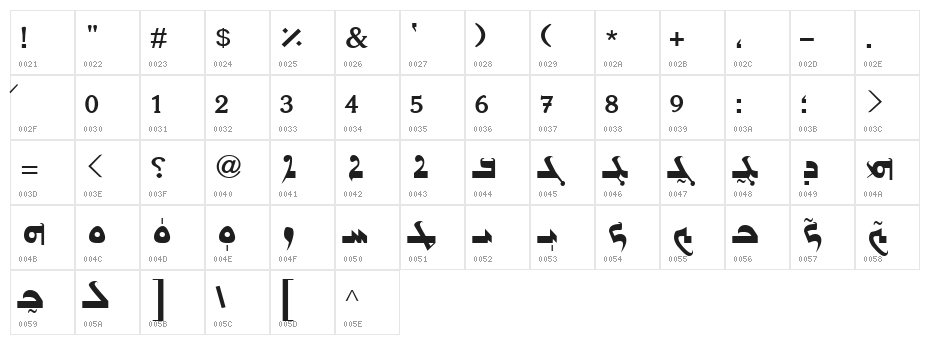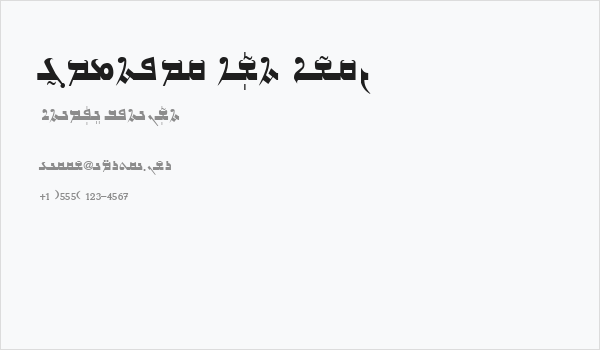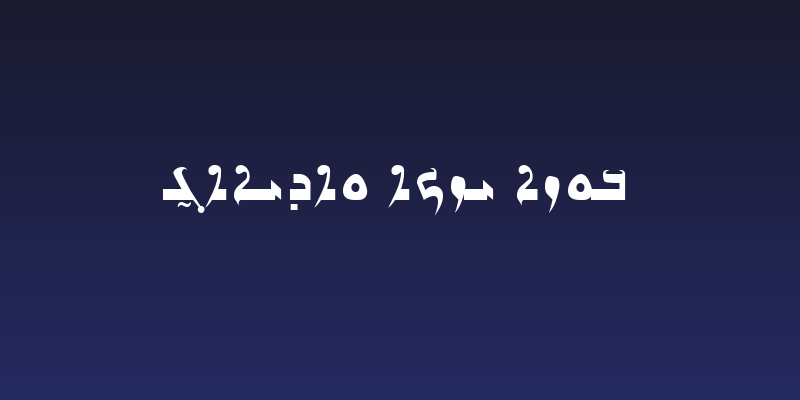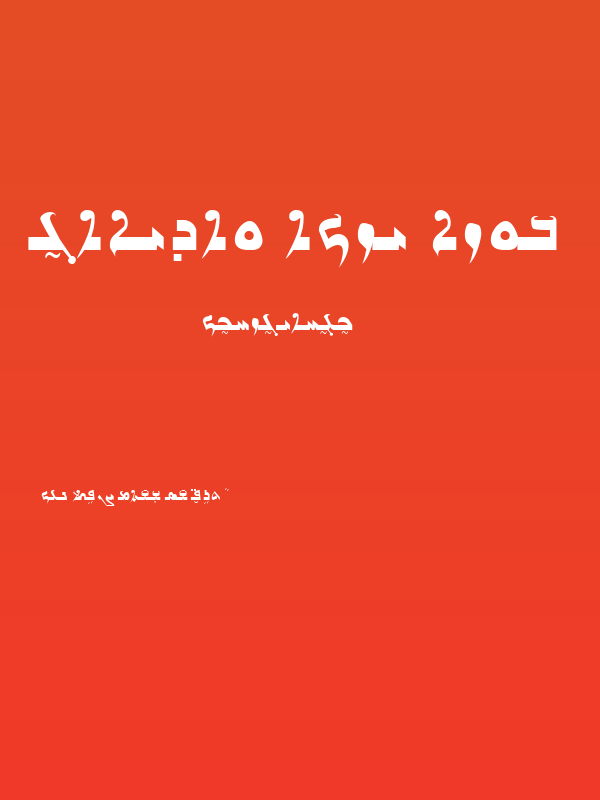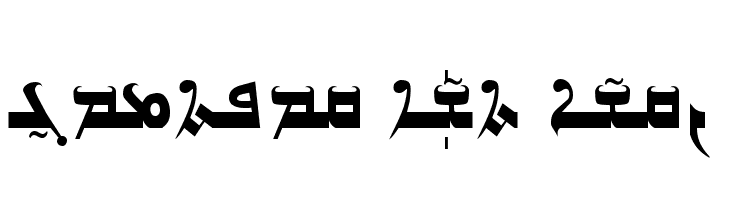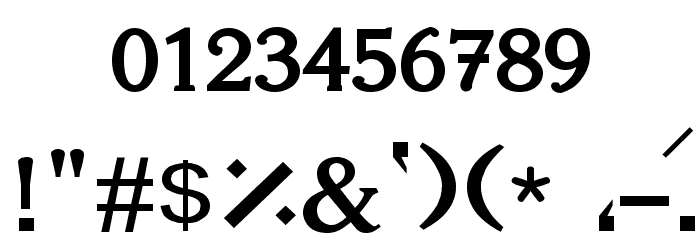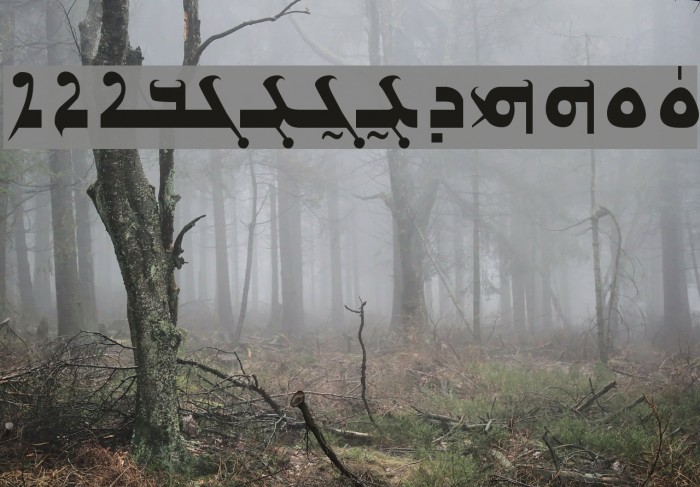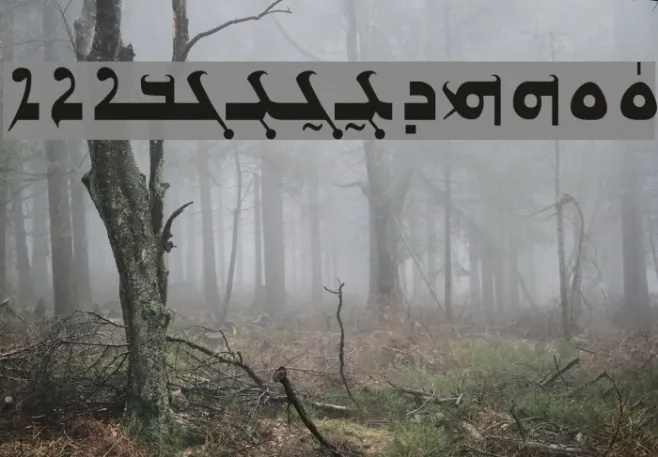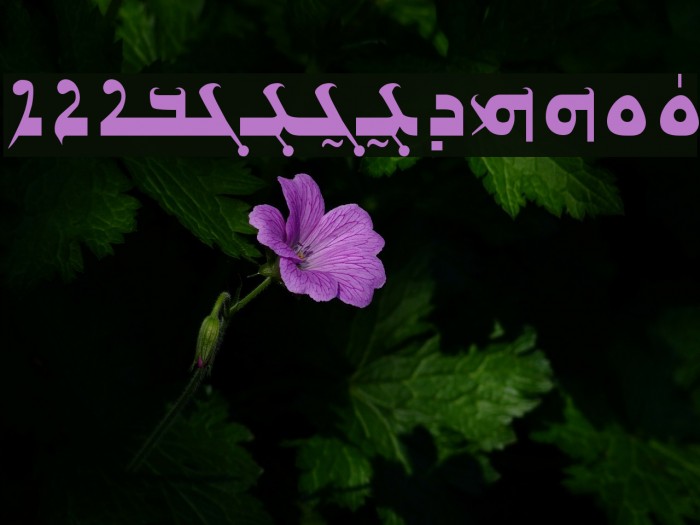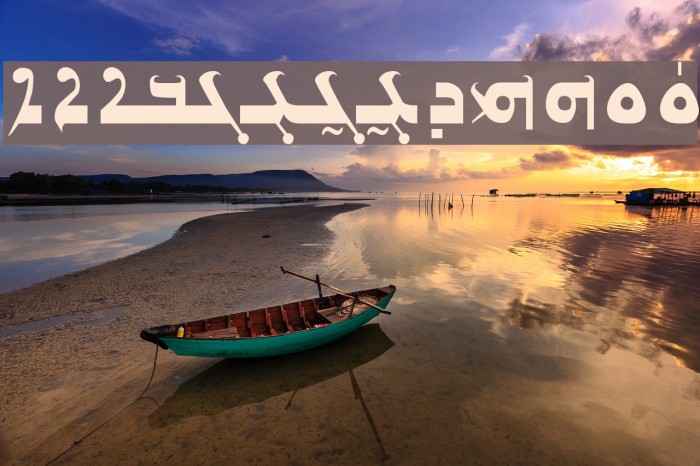
Gabrial Ator Bold Font
Gabrial Ator Bold Description
This font features a bold and striking design with a unique blend of geometric and angular elements. The characters are heavily stylized, with sharp edges and distinctive curves that create a sense of movement and energy. The uppercase letters are particularly prominent, with a strong presence that commands attention. The numerals and special characters maintain the same bold aesthetic, ensuring consistency across all elements. This font is ideal for projects that require a modern and dynamic look, making it suitable for headlines, posters, and branding materials.
| Proposed Projects | Ideal for headlines, posters, branding, and any project needing a dynamic and modern look. |